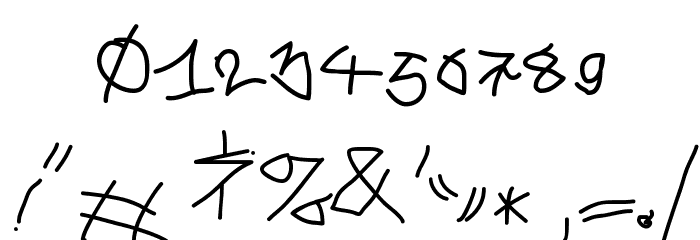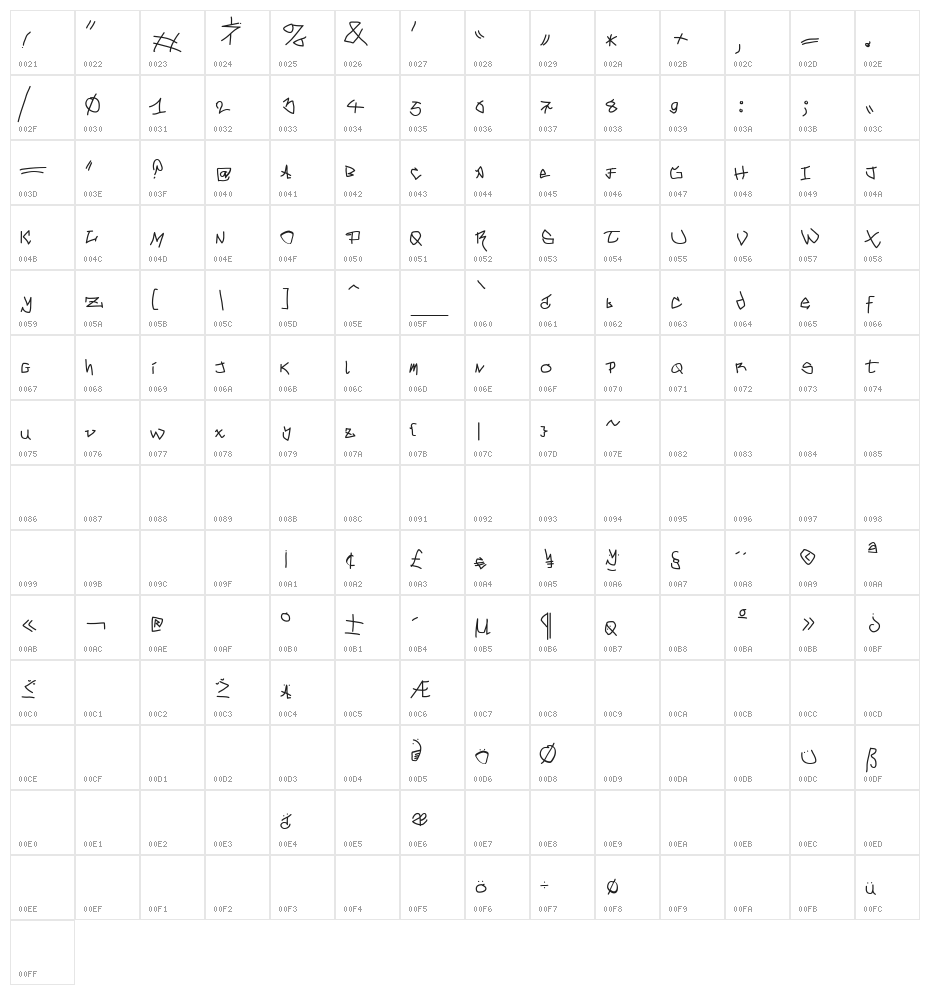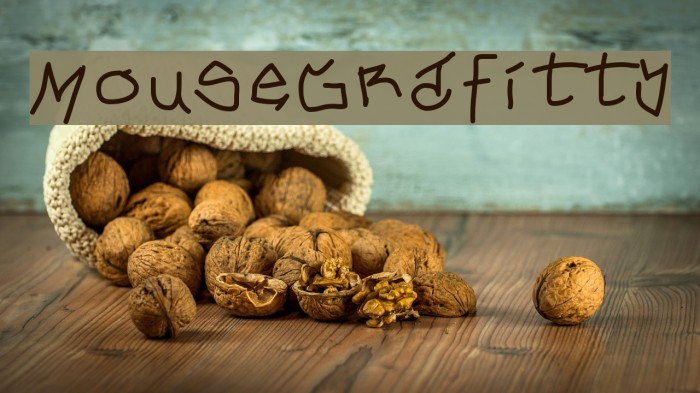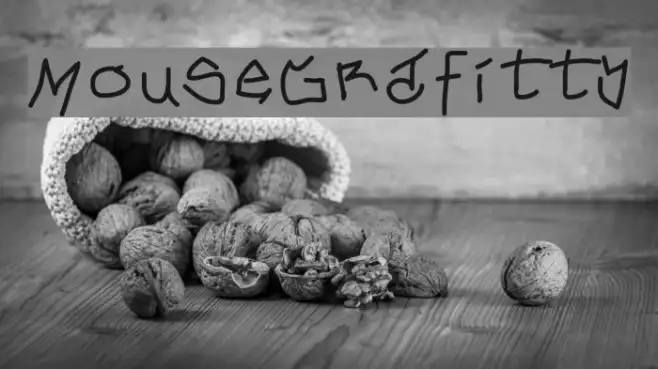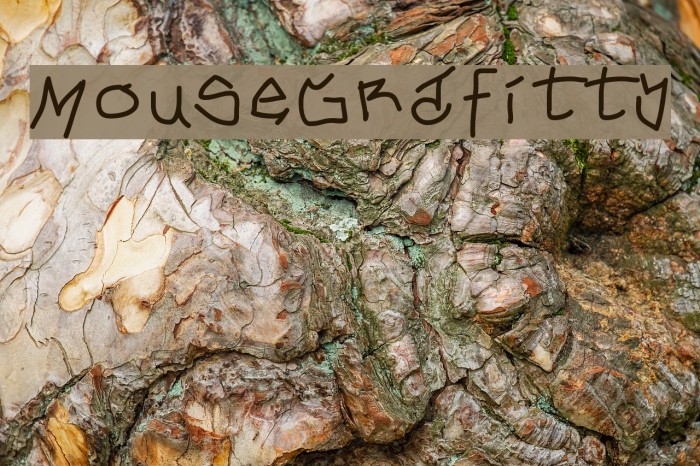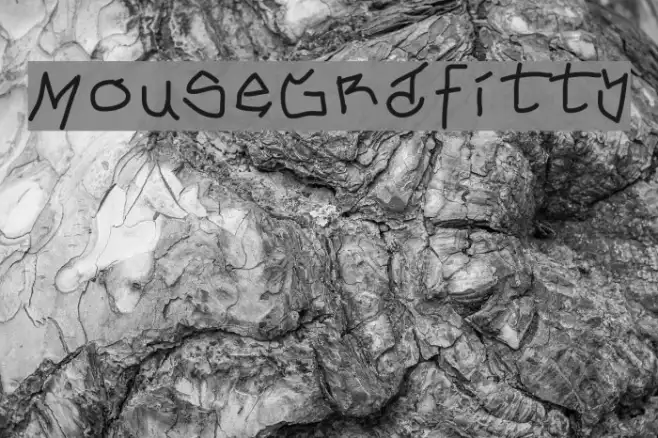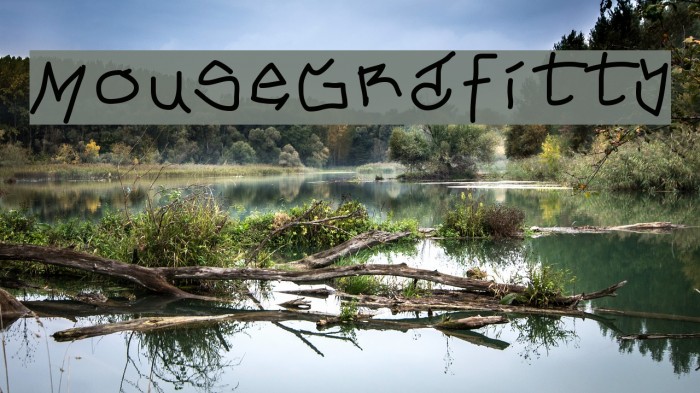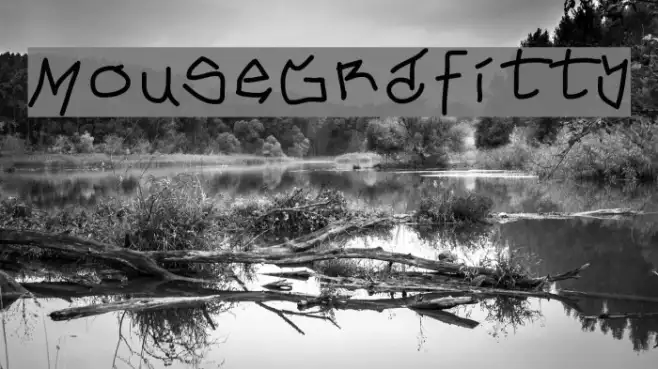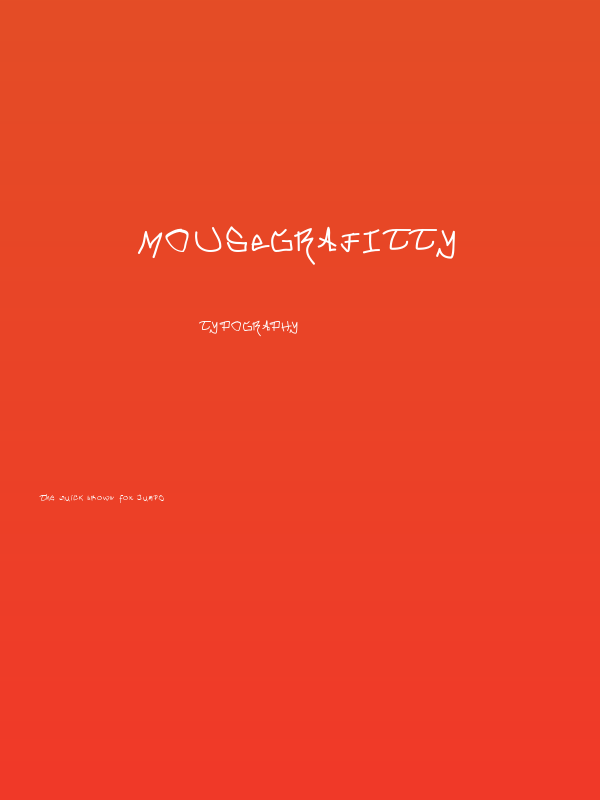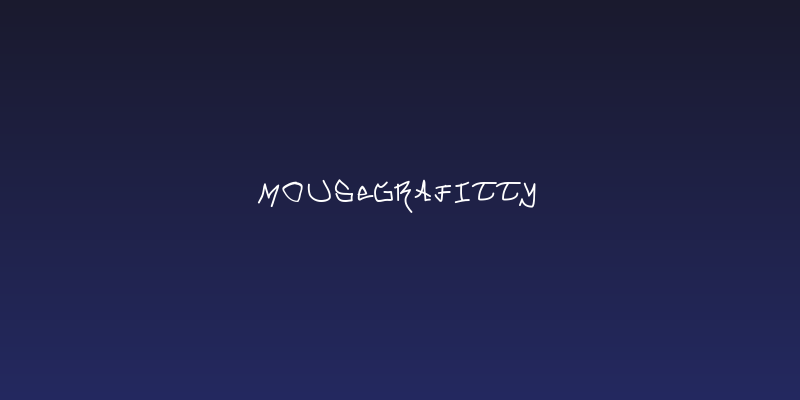
MouseGrafitty Font
MouseGrafitty Description
This font exudes a playful and dynamic energy, reminiscent of graffiti art. The characters are irregular and have a hand-drawn quality, with strokes that vary in thickness, adding to its informal and spontaneous feel. The uppercase letters are bold and assertive, while the lowercase letters maintain a consistent style, complementing the uppercase with their quirky and artistic flair. Numbers and special characters follow the same aesthetic, ensuring a cohesive look across all text. The overall style is unique and expressive, making it ideal for creative projects.
Use CaseLogos, Posters, Creative projects
Proposed ProjectsPerfect for street art-themed designs, youth-oriented branding, album covers, and event posters.